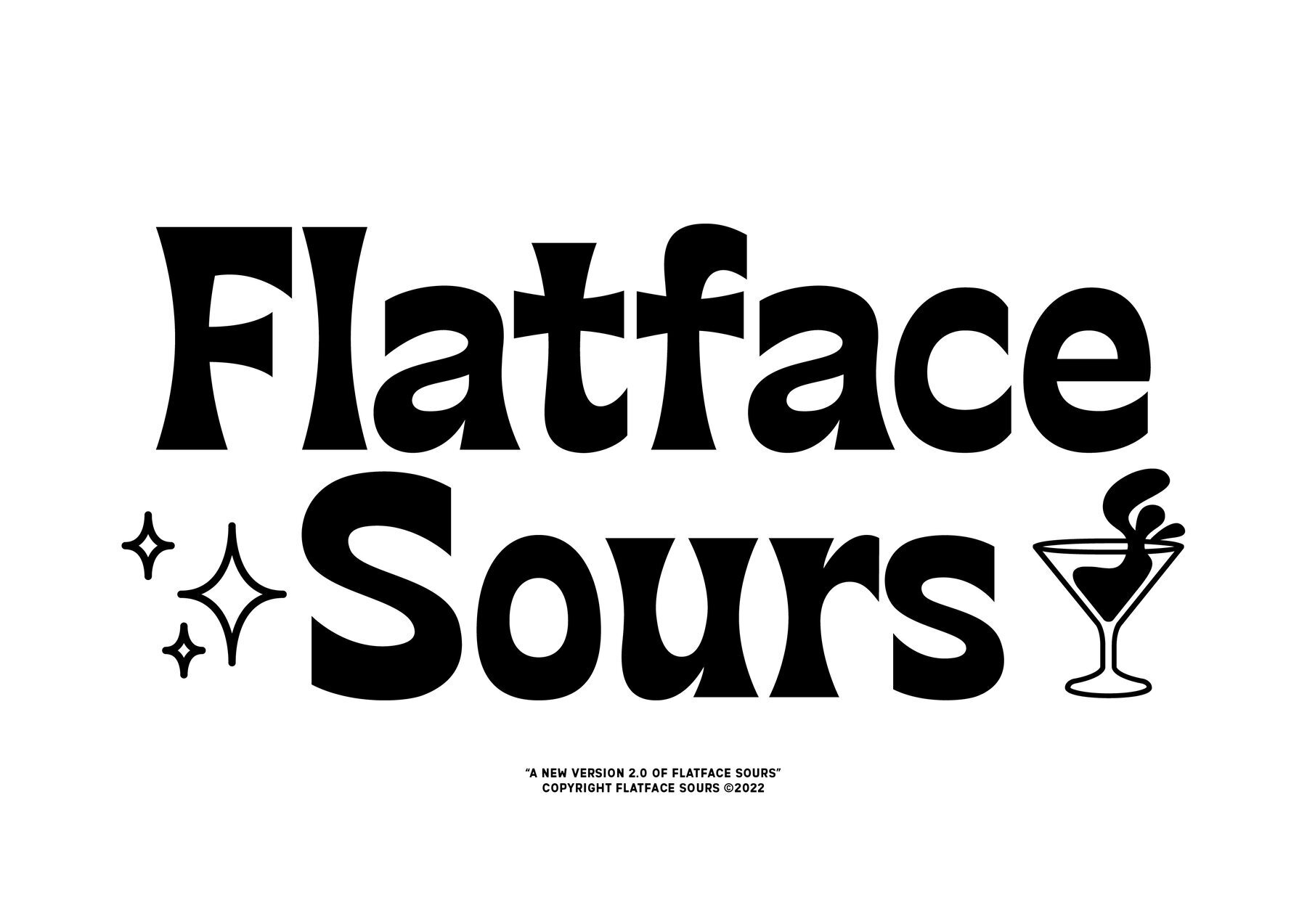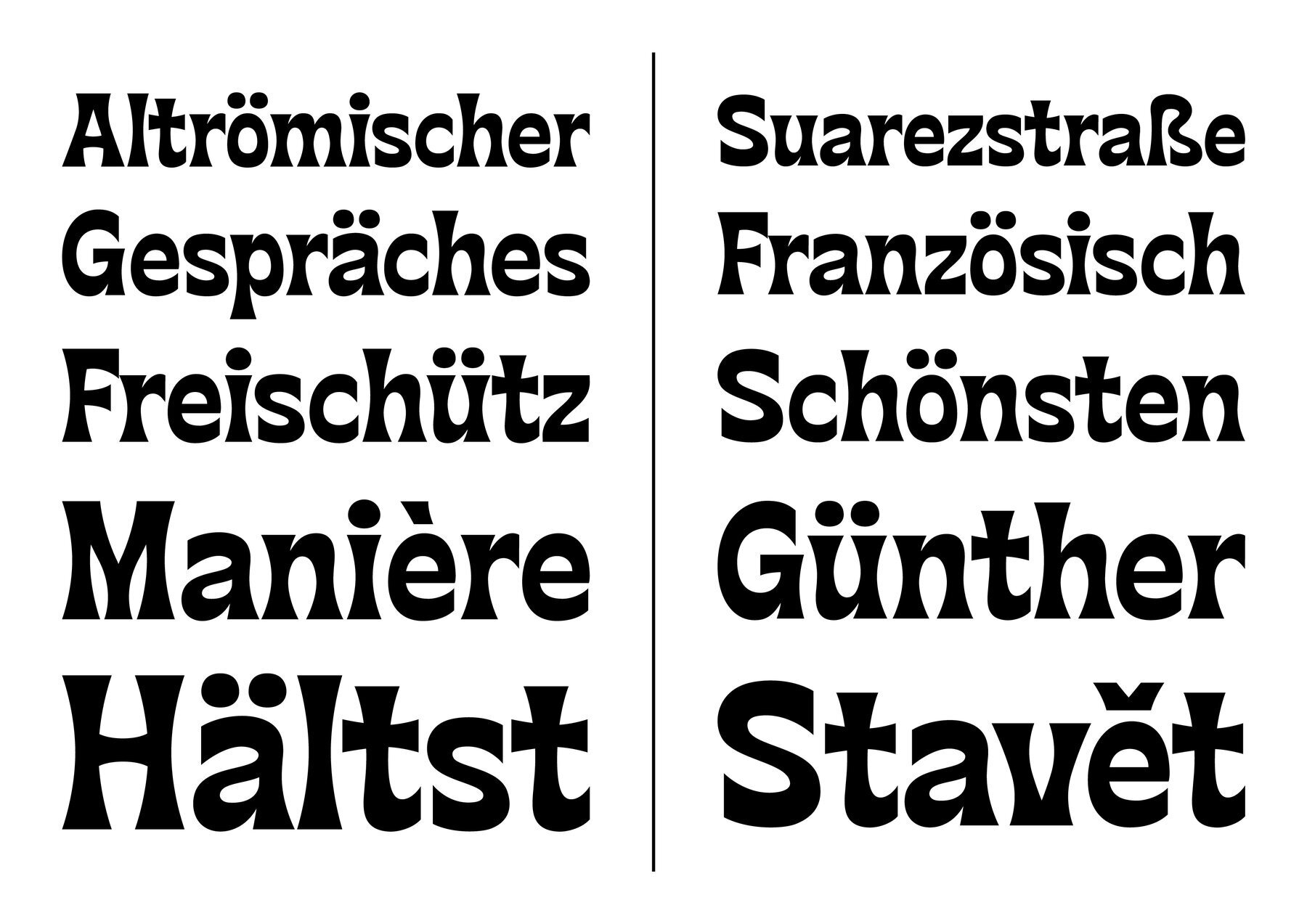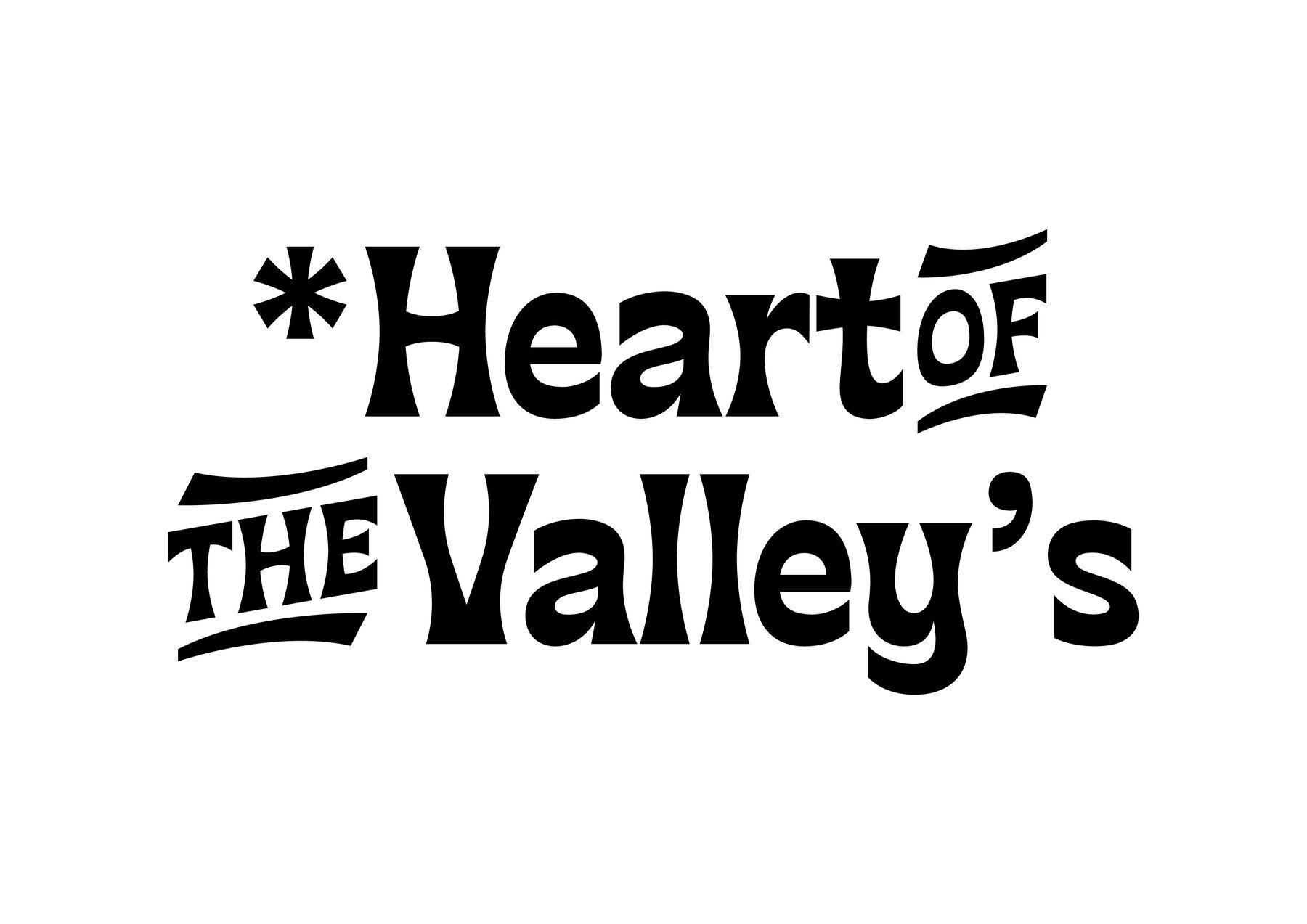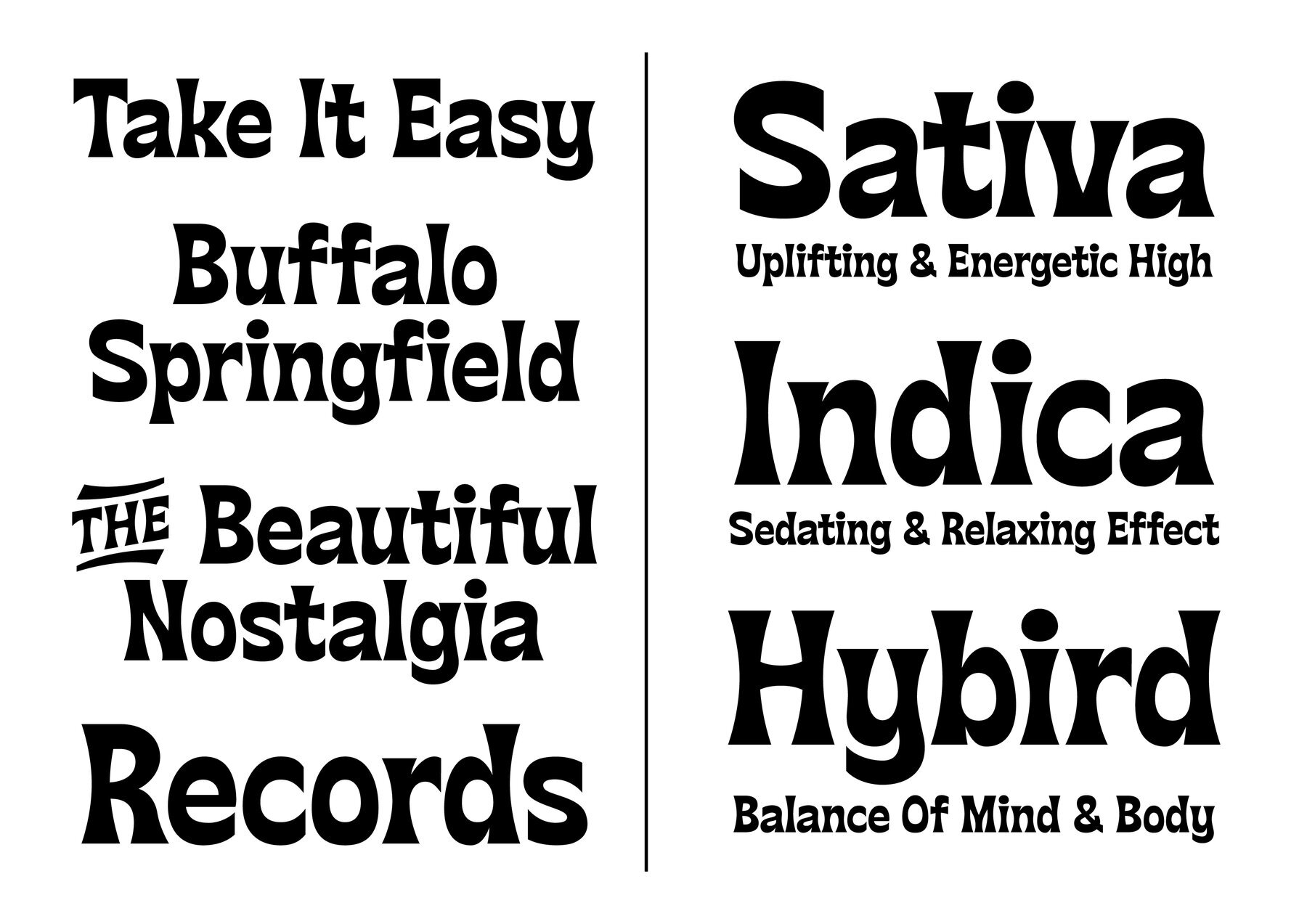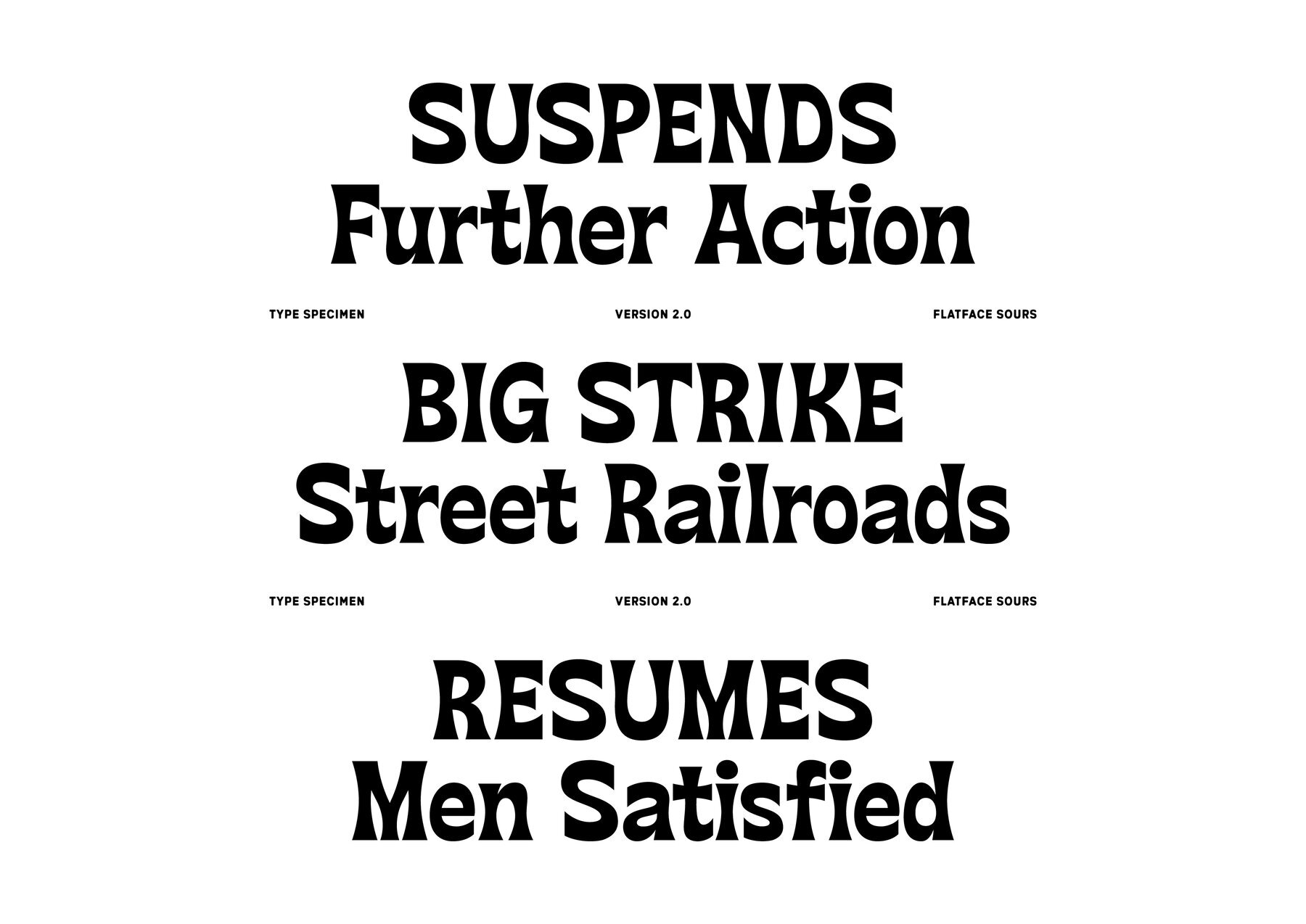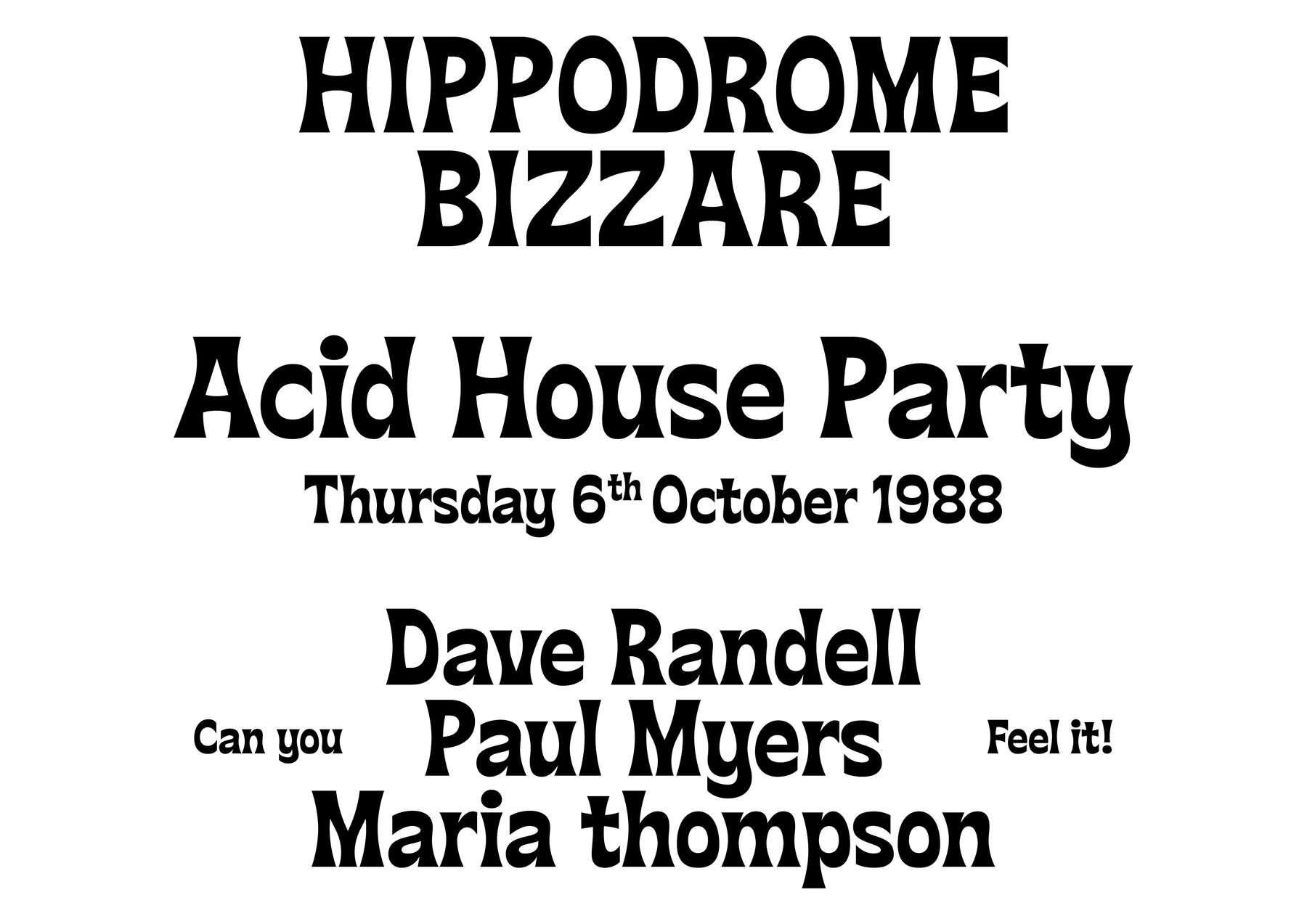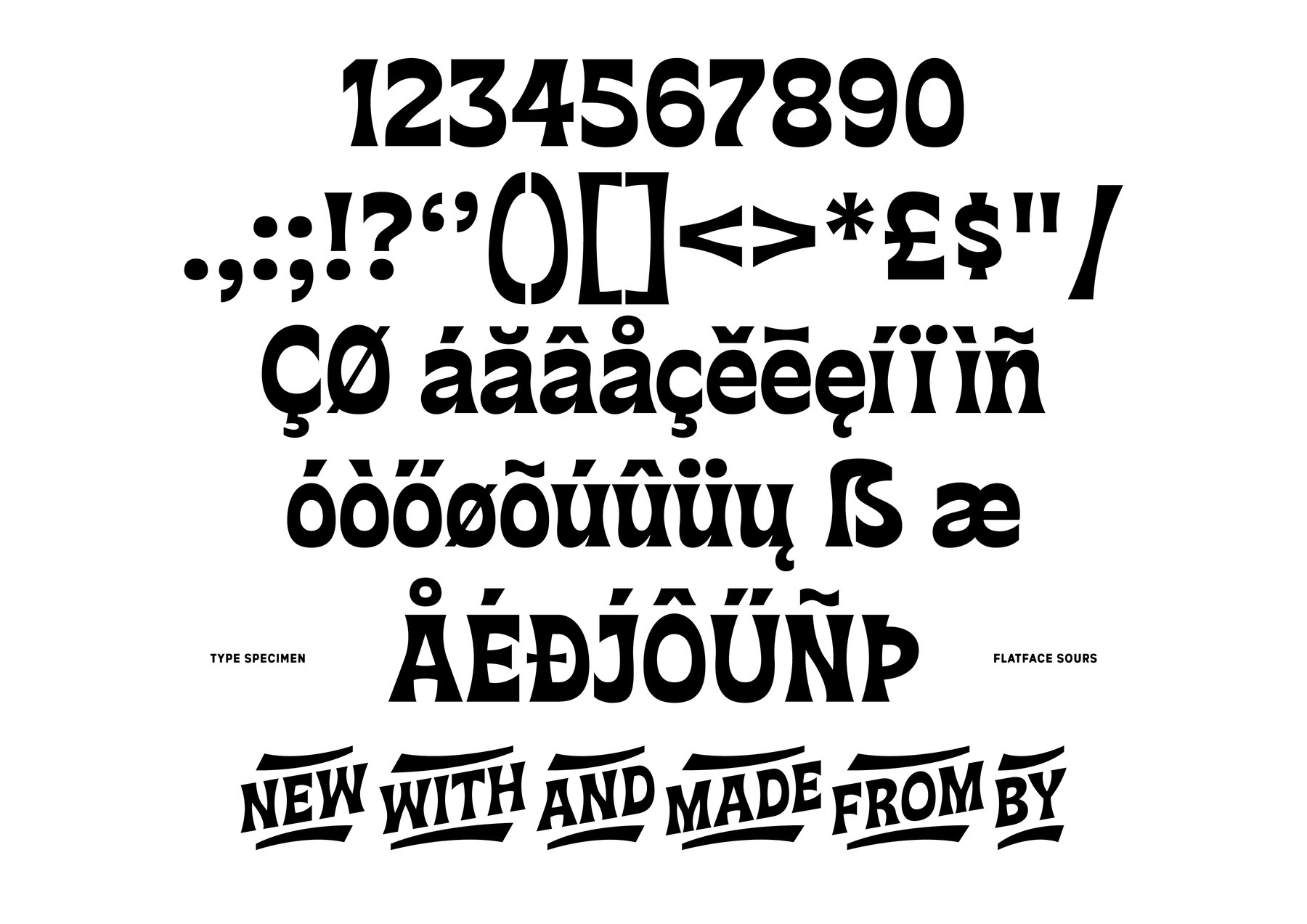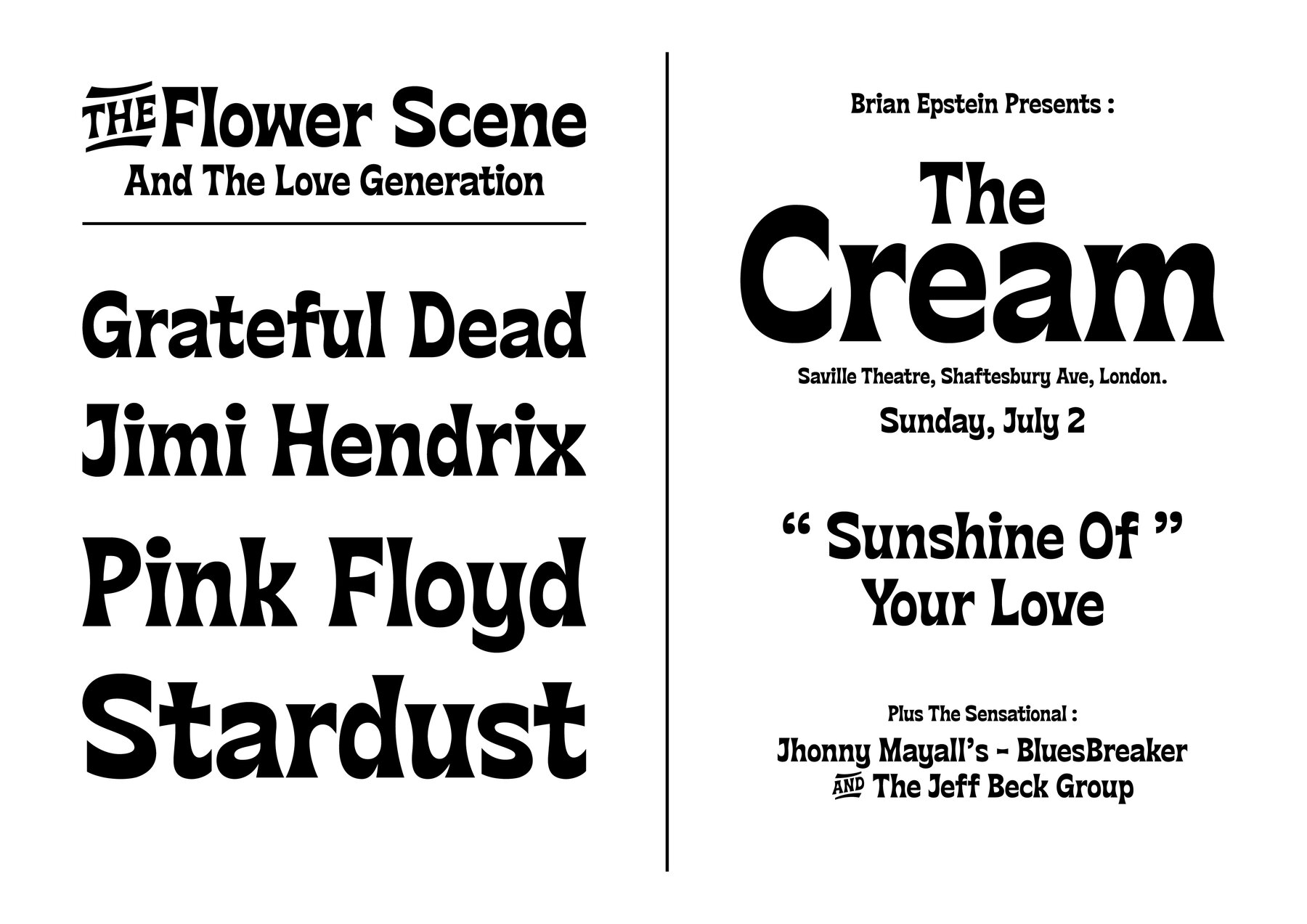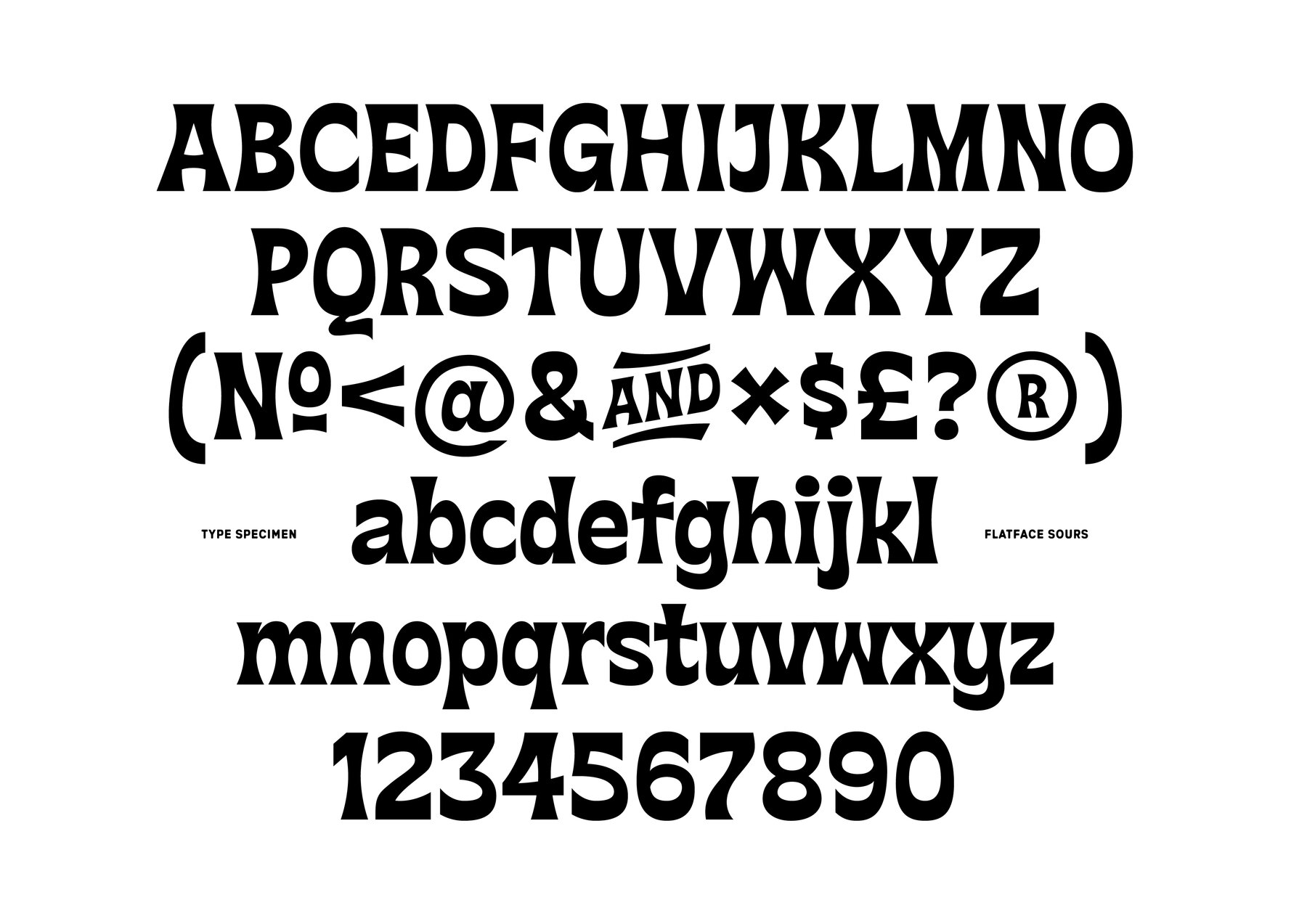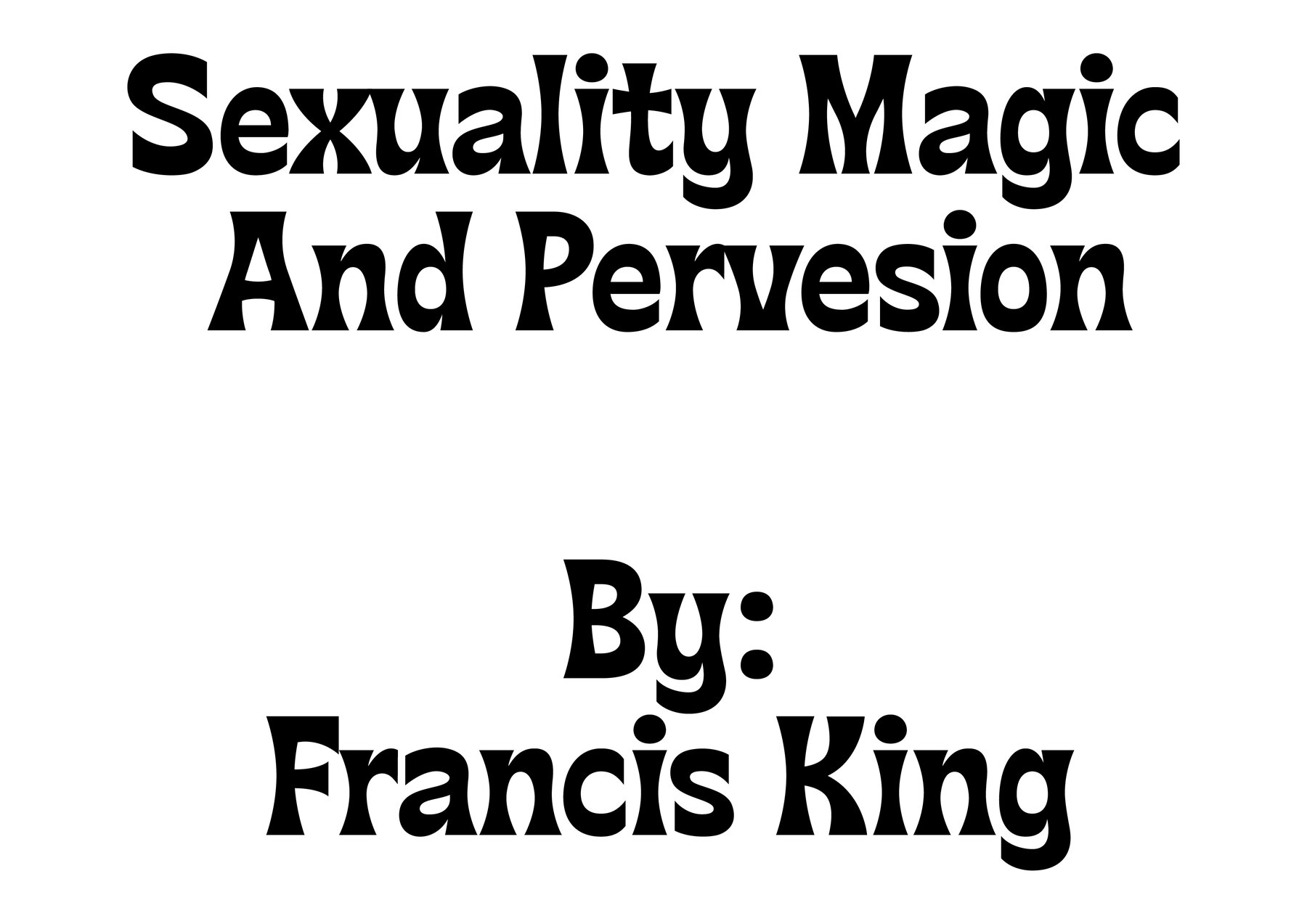
Flatface Sours 2: Retro Display Font Reimagined
Embrace a nostalgic journey with Flatface Sours 2, a display font that draws inspiration from the iconic psychedelic era of the 70s. With a refreshed touch, this version brings lowercase letters into the mix, capturing the vibrant spirit of music and gig posters from the period. Its playful character makes it an ideal choice for an array of creative endeavors, injecting both ease and whimsy into your projects.
• Psychedelic Inspiration – Reflects the bold design of 70s music and gig posters.
• New Lowercase Addition – Offers expanded versatility for creative uses.
• Playful and Easygoing – Perfect for adding a touch of fun to any design.